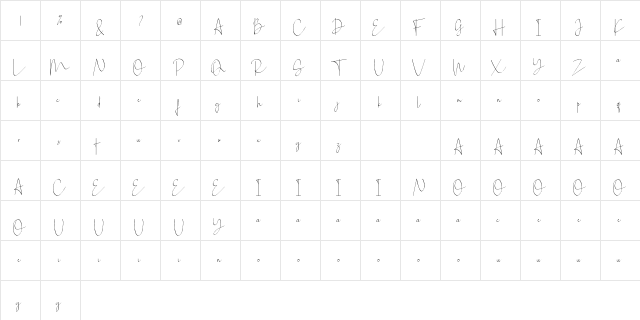
Saint Hilton Regular
| Foundry | RantauType |
| Designer | Yudi Pratama Chandra |
Design Context for Saint Hilton Typeface
Saint Hilton is a composed and adaptable typeface that performs quietly and consistently across a wide range of design contexts.